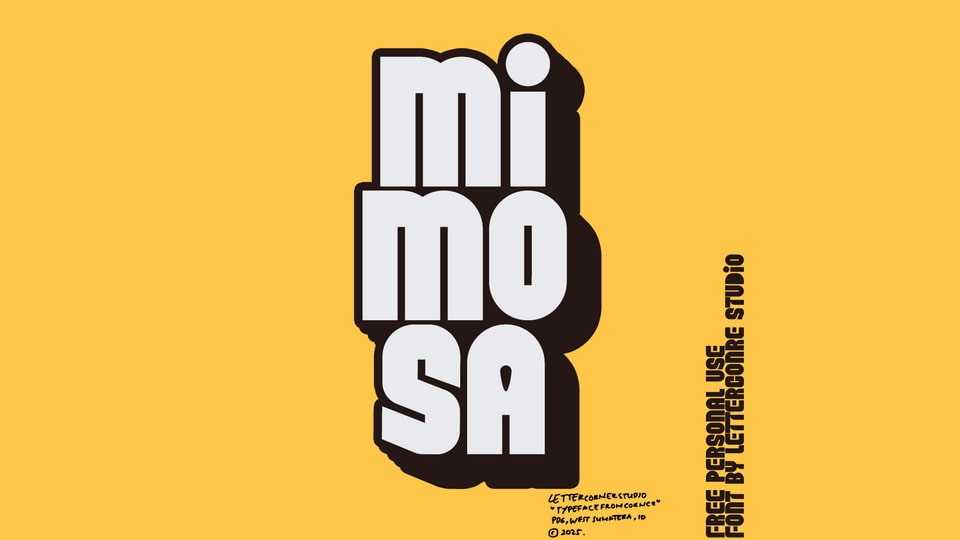
Download Mimosa font, a powerful, bold display typeface built to make a statement. With its compact width, heavy weight, and smooth curves, Mimosa delivers strength and clarity in every letter.
Designer: Lettercorner Studio